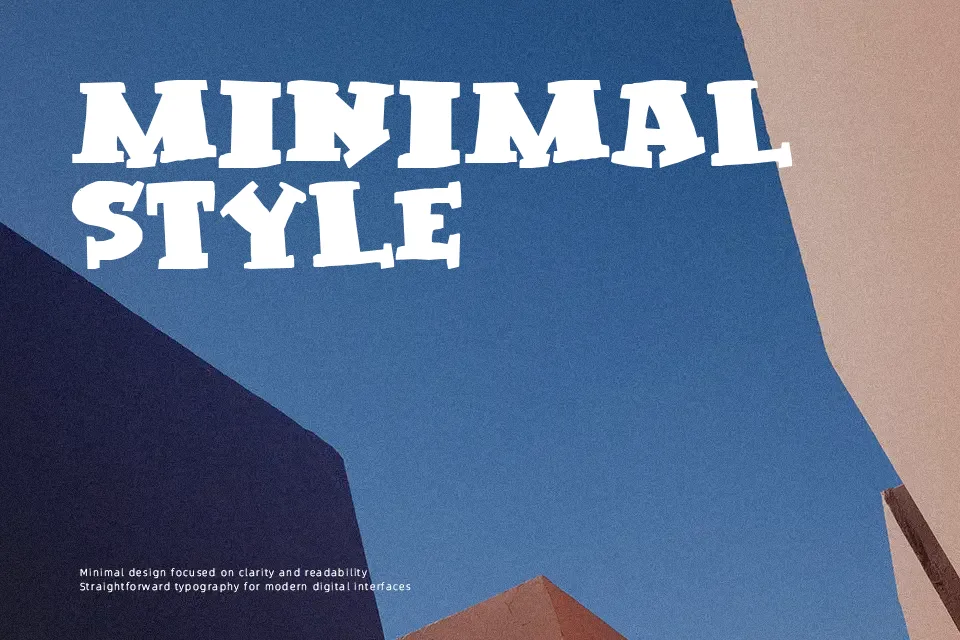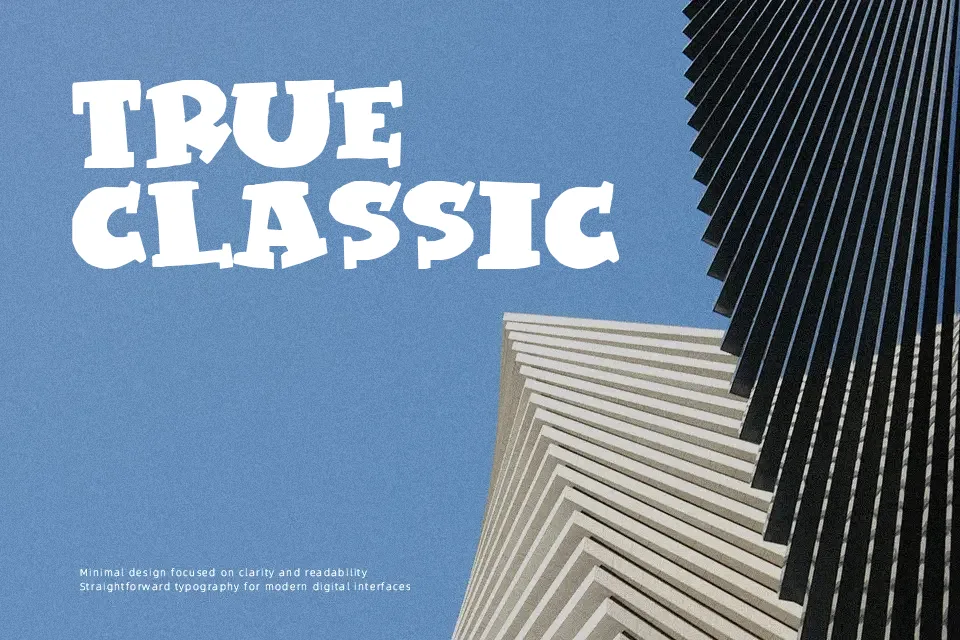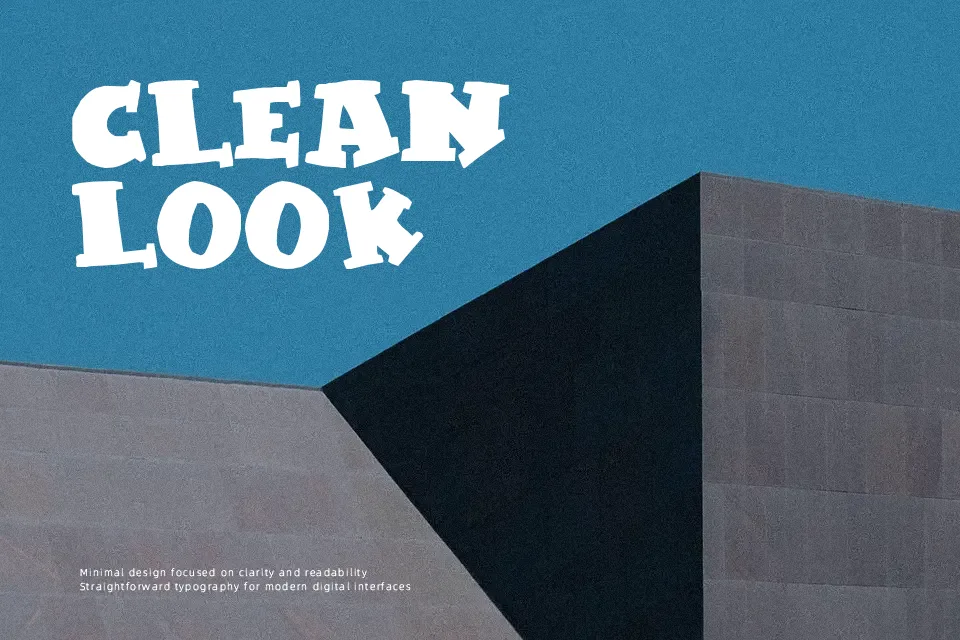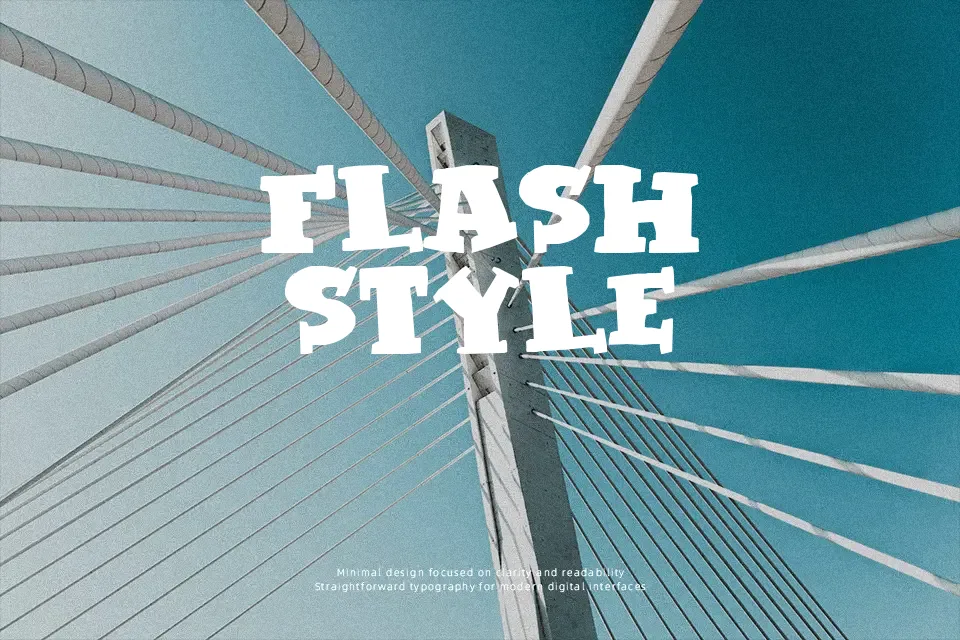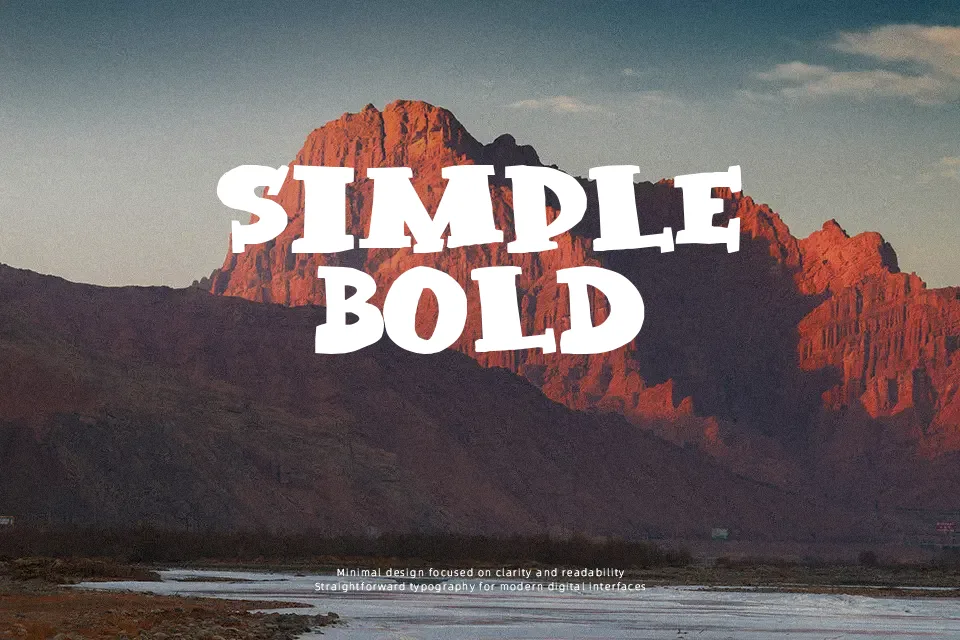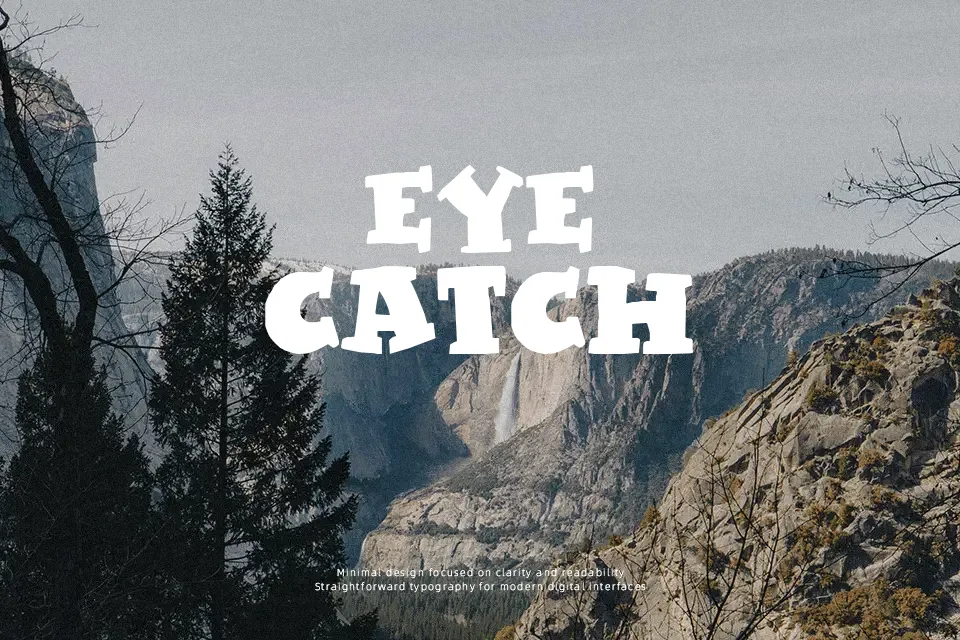
Kleptomaniac Font
Designed by Pizzadude
A raw, street-driven attitude defines Kleptomaniac Font, with jagged strokes, uneven spacing, and a hand-drawn graffiti structure. The letterforms feel spontaneous and slightly chaotic, giving it a gritty, underground aesthetic that stands out in visual-heavy compositions. It works convincingly on album covers, skate brand graphics, or bold poster headlines where personality matters more than precision. However, the irregular shapes and tight readability make it unsuitable for extended reading or formal layouts. It performs best when used sparingly, where its expressive style can lead without overwhelming the design.
music album covers
streetwear branding graphics
urban event posters
skateboard or graffiti-themed visuals
corporate presentations
formal business materials
small-size UI text
Perfect for branding, logo, and music, with a artistic and decorative style.